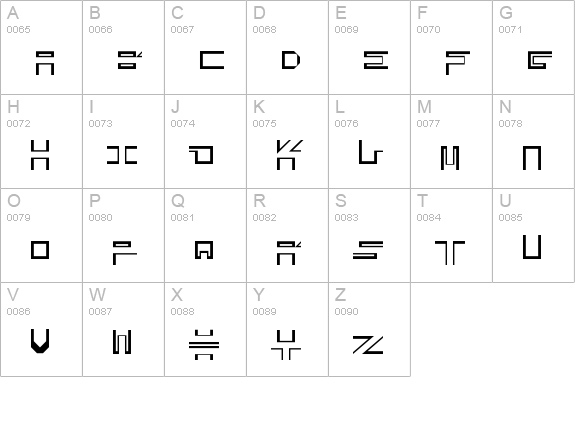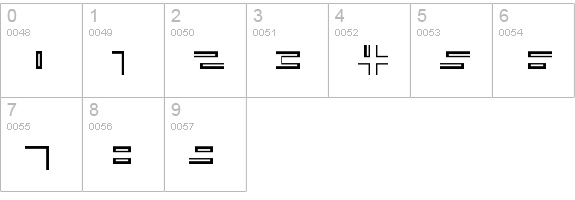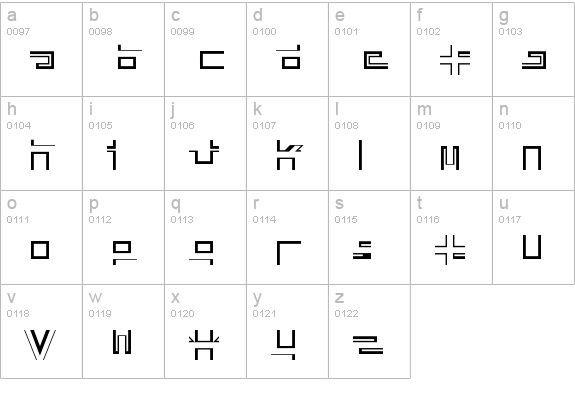
City-Architecture Font Details
City-Architecture font is a modern and stylish typeface that captures the essence of urban design and architectural beauty. Its sleek lines and geometric shapes evoke a sense of sophistication and professionalism, making it perfect for a wide range of design projects. This font is not only visually appealing but also versatile, suitable for both headlines and body text. Its clean and elegant design ensures readability while adding a touch of contemporary flair to any project. The best part? City-Architecture font is available for free download at FontsMarket.com. This means you can easily access this high-quality font and use it in your designs without any cost, making it a valuable addition to your font collection. Whether you're working on a branding project, website design, or any other creative endeavor, City-Architecture font is sure to elevate your work and make a lasting impression. Download it today and see for yourself the impact this font can have on your designs.